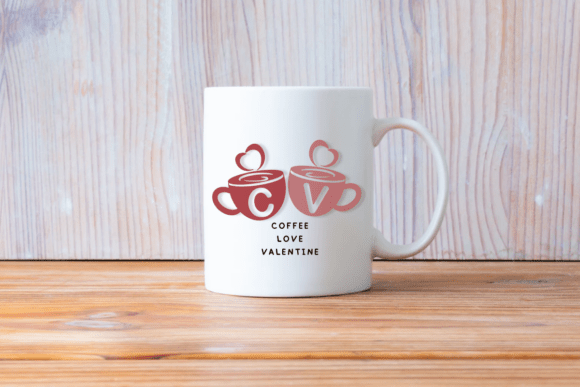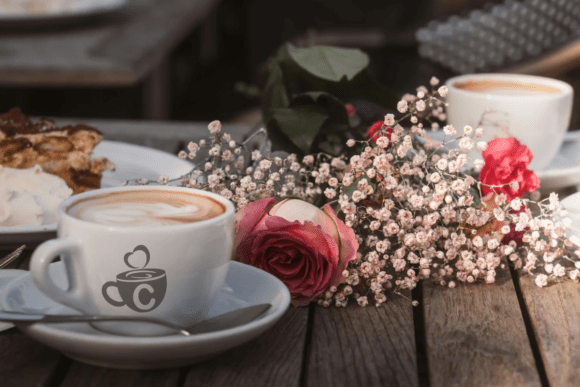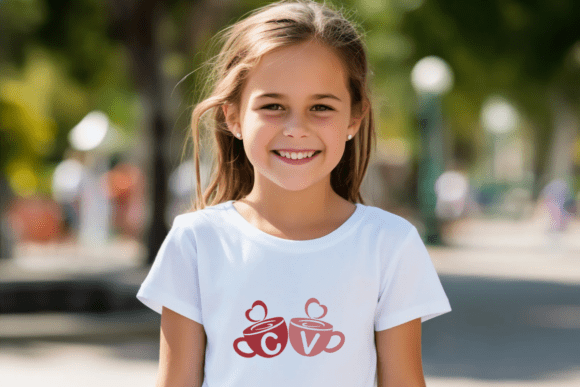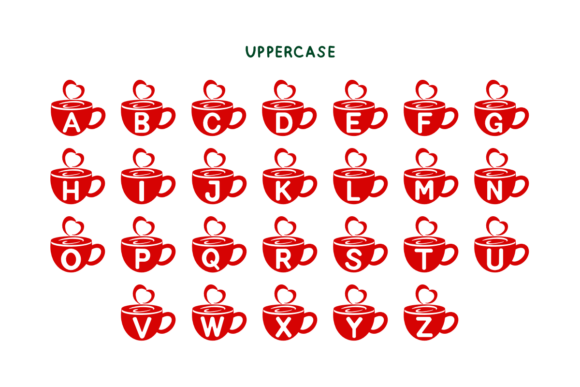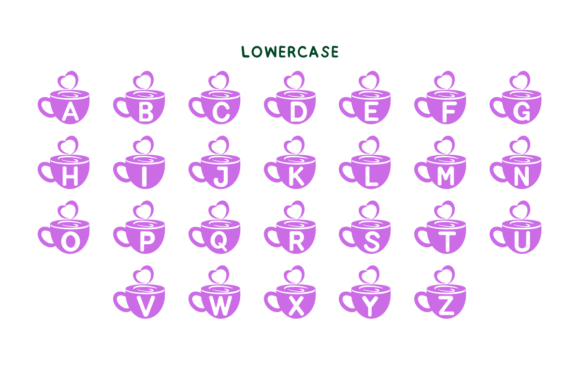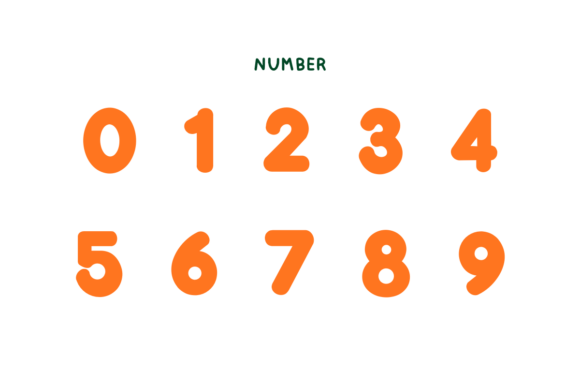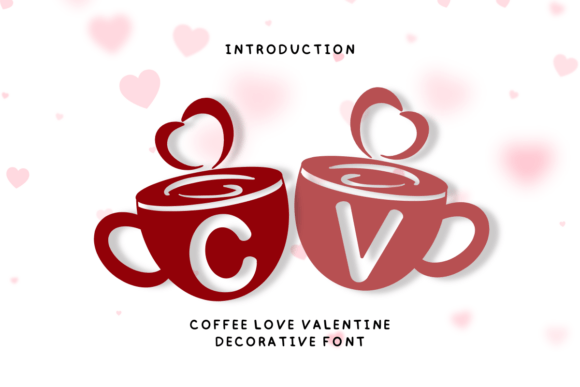
Coffee Love Valentine Font: Elevate Your Designs with Charming Allure
Are you a designer, crafter, or simply someone who loves to add a personal touch to their daily creations? Look no further than the Coffee Love Valentine font, a meticulously crafted decorative font that is sure to captivate your audience. With its charming allure and versatility, this font is perfect for a myriad of uses, from daily note-taking and diary scribbles to crafting heartfelt greeting cards.
Unleash Your Creativity with Coffee Love Valentine
Coffee Love Valentine is more than just a font – it’s a creative tool that can elevate your designs and add a dash of personality to your everyday projects. Whether you’re a seasoned designer or a crafty DIY enthusiast, this font is sure to inspire you to create something truly special. From standout banners and irresistible mug prints to distinctive stationery, cool T-shirt graphics, and eye-catching social media posts, the possibilities are endless with Coffee Love Valentine.
As a designer or crafter, you know how important it is to have a font that can help you stand out from the crowd. Coffee Love Valentine is the perfect solution, offering a unique and charming aesthetic that is sure to capture the attention of your audience. With its decorative and whimsical feel, this font is perfect for a variety of projects, including:
- Greeting Cards: Create heartfelt and personalized greeting cards for special occasions, such as Valentine’s Day, birthdays, and anniversaries.
- Stationery: Add a touch of elegance and sophistication to your stationery, including notebooks, journals, and letterheads.
- Mug Prints: Design eye-catching and irresistible mug prints that are sure to make your friends and family smile.
- T-Shirt Graphics: Create cool and stylish T-shirt graphics that are perfect for casual wear.
- Social Media Posts: Elevate your social media posts with eye-catching and engaging graphics that are sure to capture the attention of your followers.
Why Choose Coffee Love Valentine?
So why choose Coffee Love Valentine over other fonts? Here are just a few reasons why this font stands out:
- Unique and Charming: Coffee Love Valentine offers a unique and charming aesthetic that is sure to capture the attention of your audience.
- Versatile: This font is perfect for a variety of projects, from daily note-taking and diary scribbles to crafting heartfelt greeting cards and designing standout banners.
- High-Quality: This font is meticulously crafted to ensure high-quality and crisp text, even at small sizes.
Tips for Using Coffee Love Valentine
Here are a few tips for using Coffee Love Valentine to elevate your designs:
- Use for Headings and Titles: Use Coffee Love Valentine for headings and titles to add a touch of elegance and sophistication to your designs.